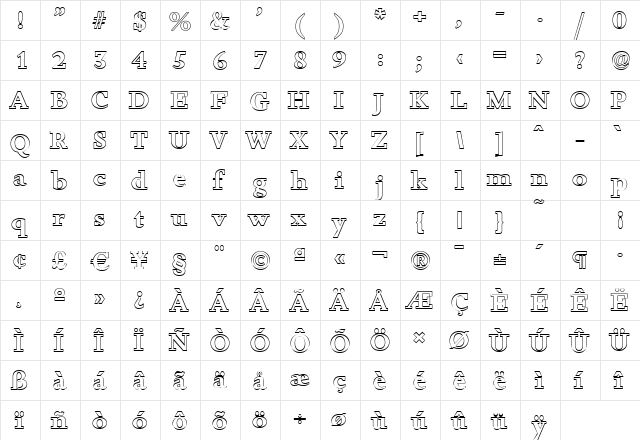
JessicaBeckerOutline Bold Font Preview
JessicaBeckerOutline Bold
Design Context for JessicaBeckerOutline Typeface
JessicaBeckerOutline brings ornamental detail and strong personality to headlines and identities, where visual impact matters more than quiet functionality. The heavy weight commands attention and anchors typographic hierarchies.
Font Pairing: Pair with a clean neutral sans-serif for body copy to let JessicaBeckerOutline's character lead without overwhelming the composition.
Pro Tip: Use JessicaBeckerOutline exclusively at display sizes — it was designed to be seen, not read at length. Let a neutral companion handle body copy.